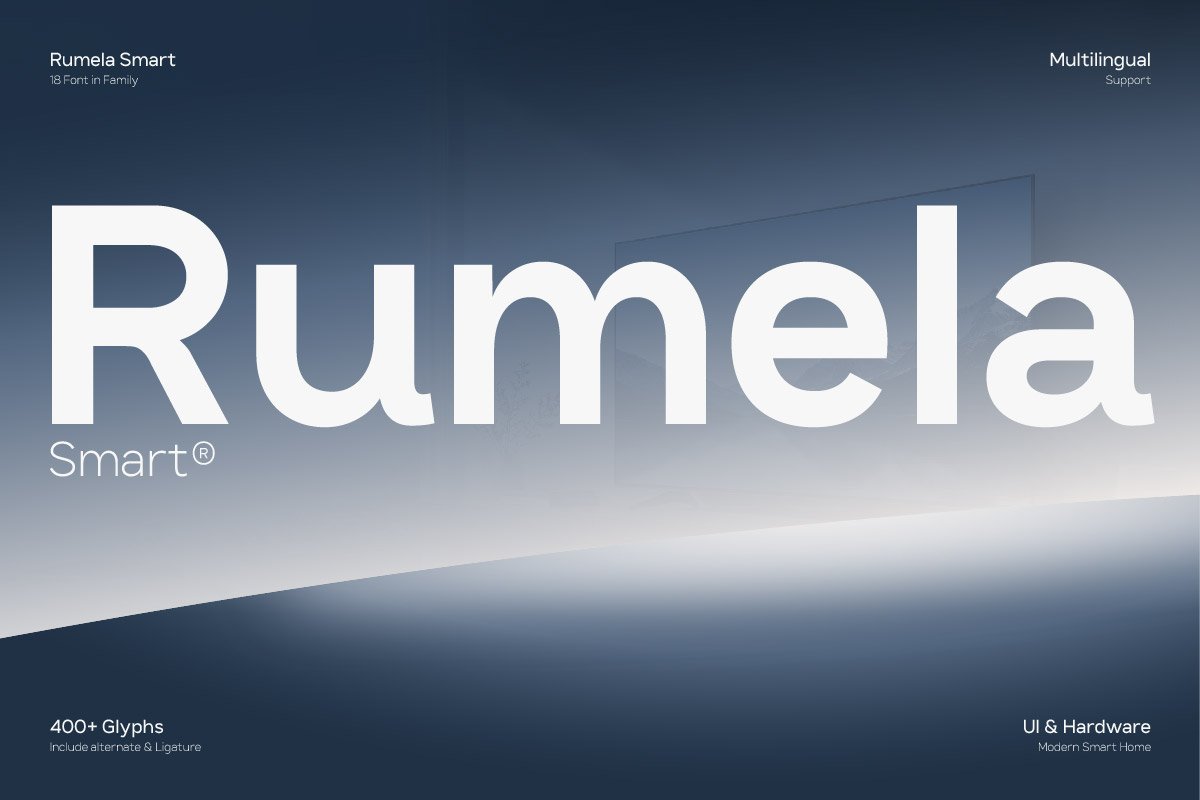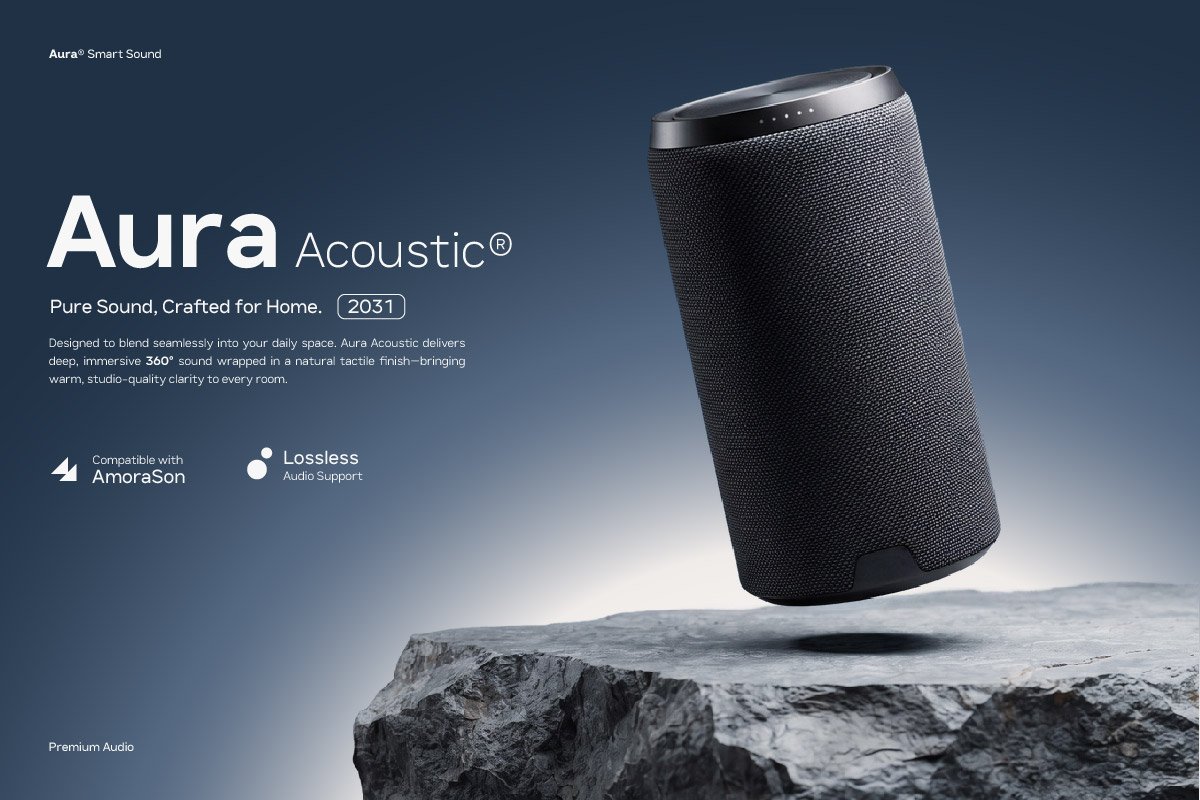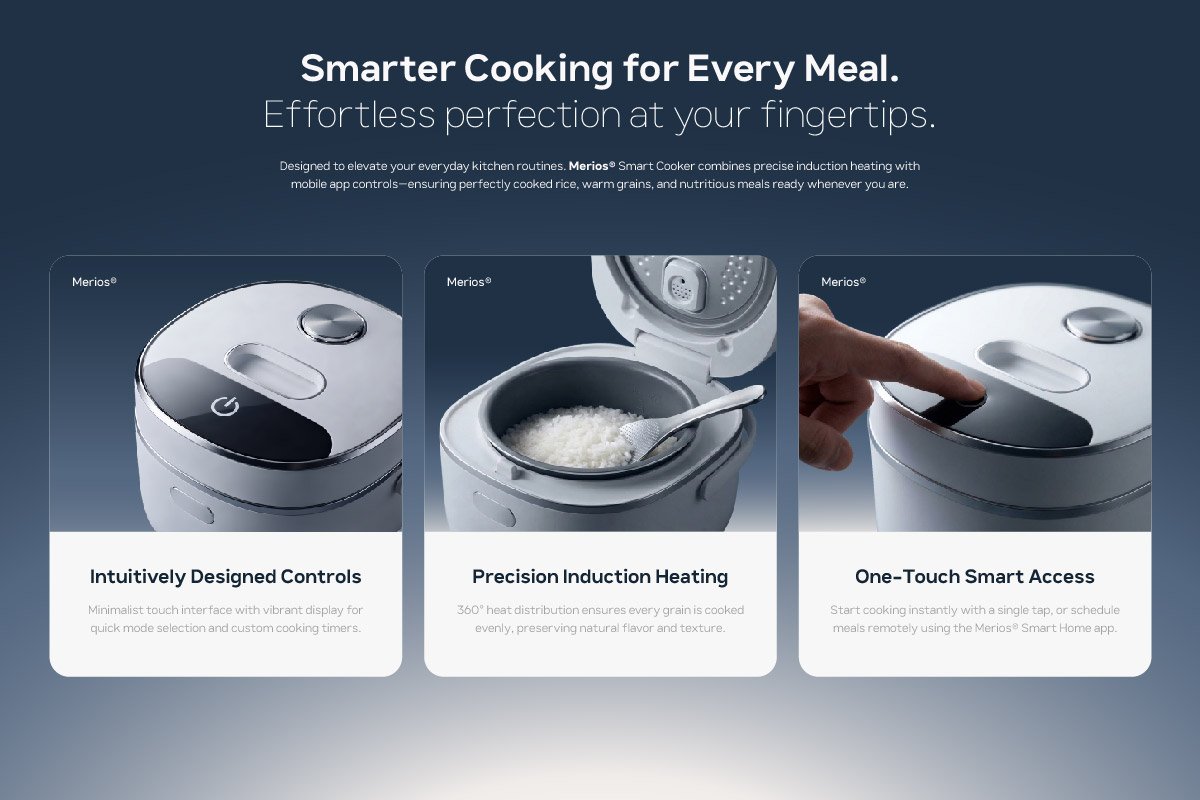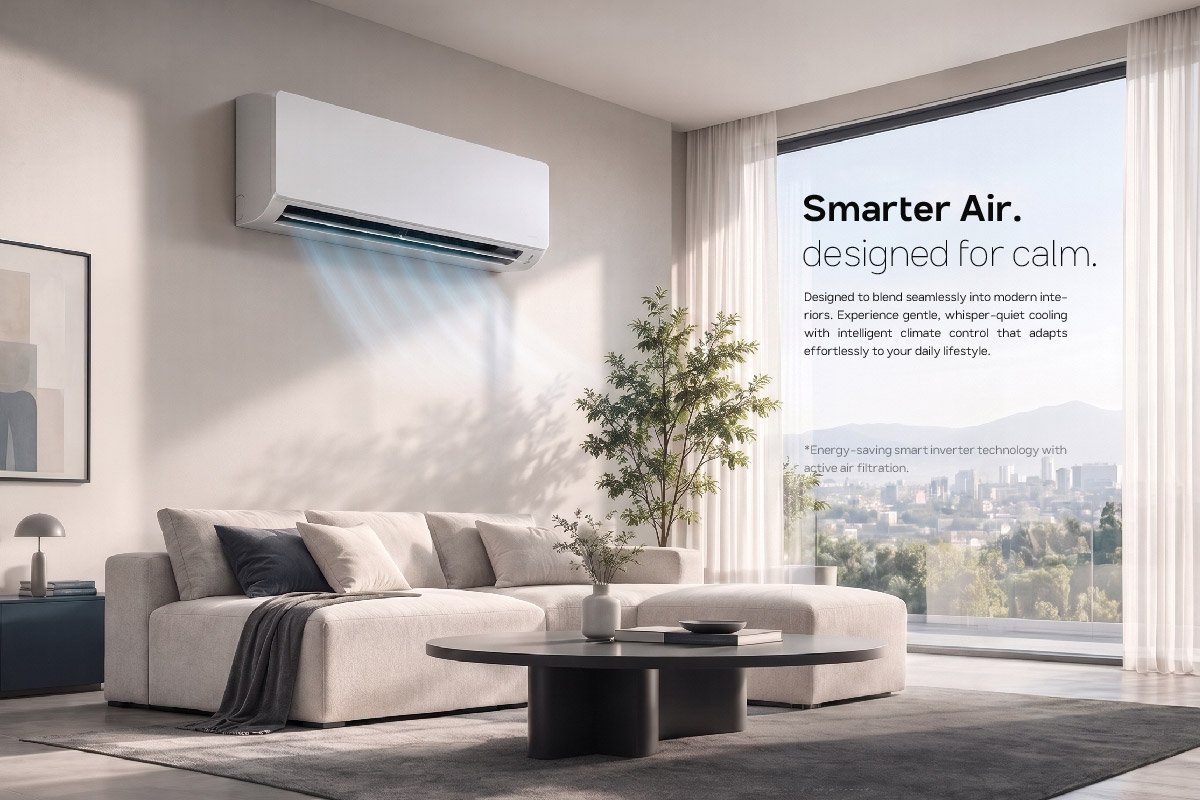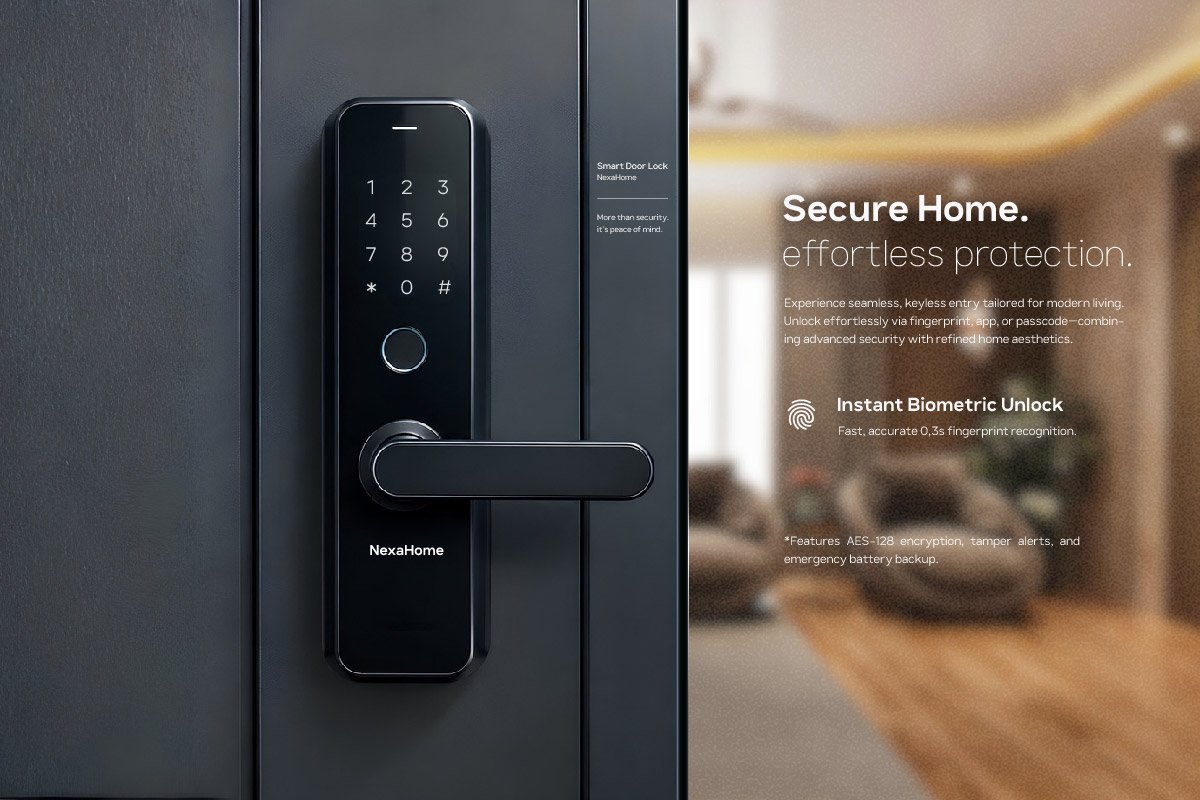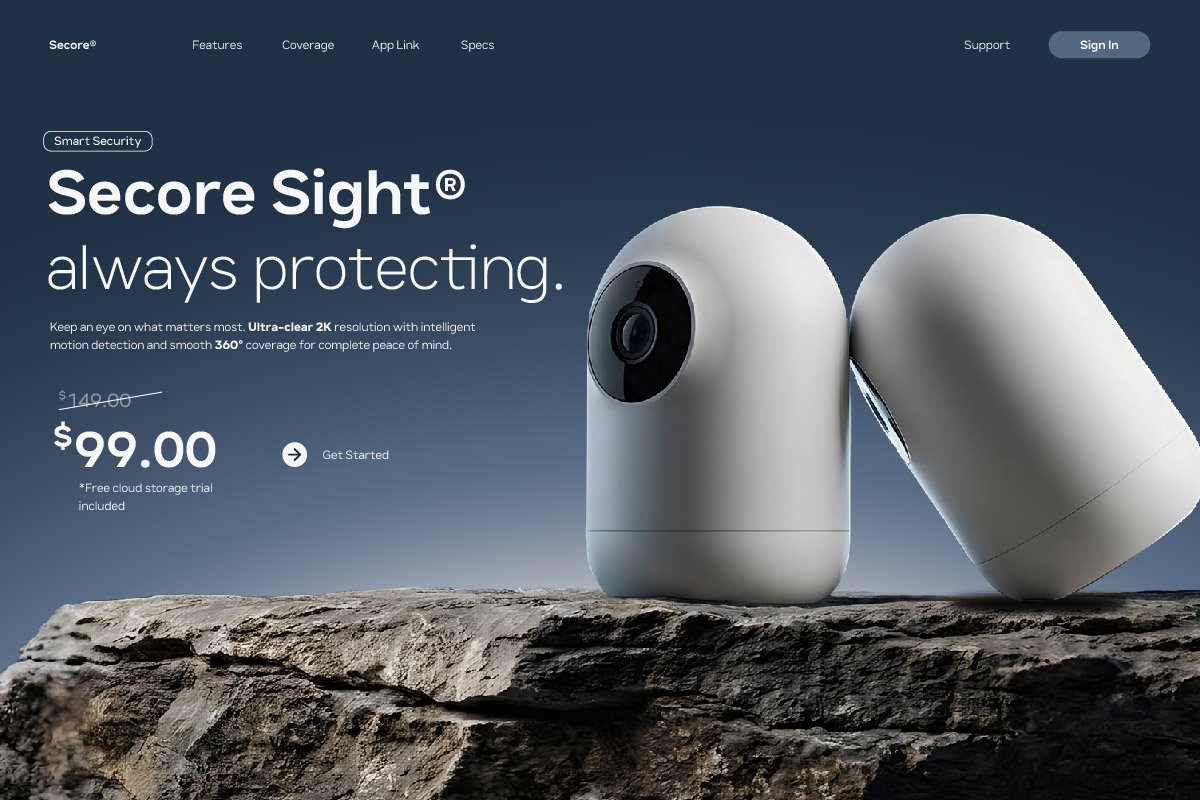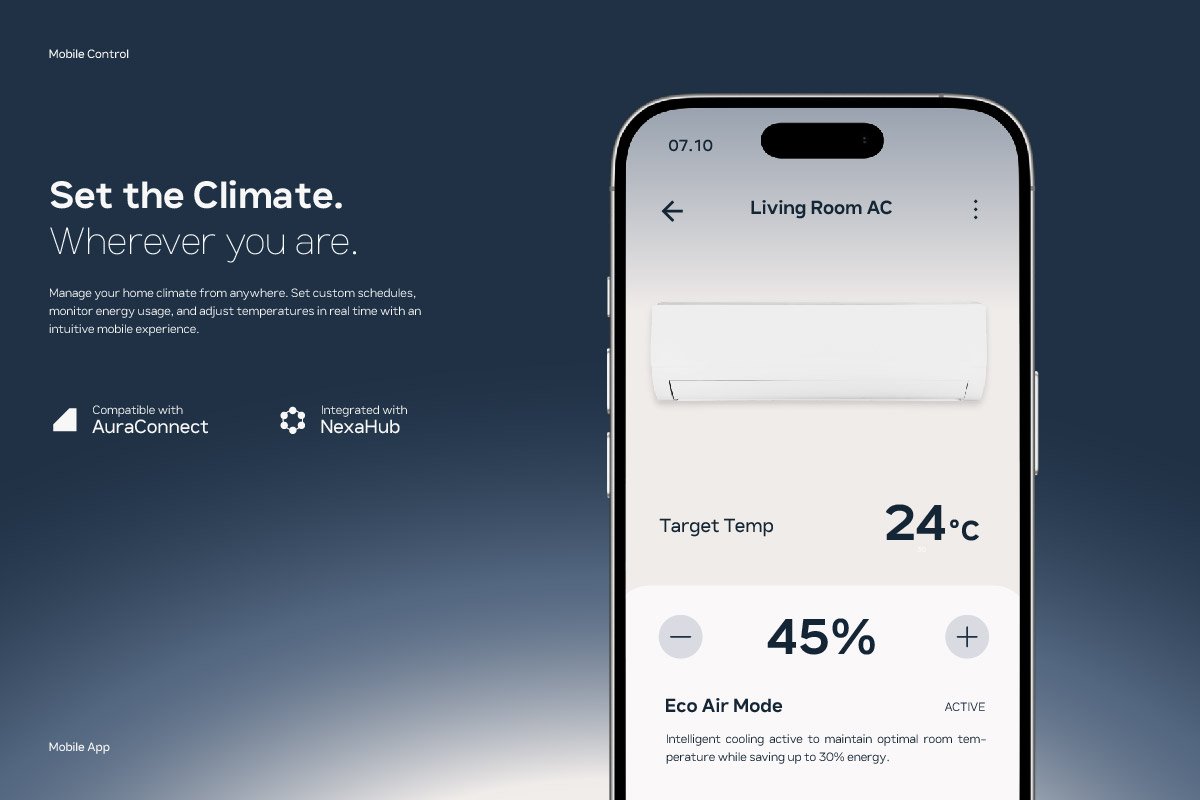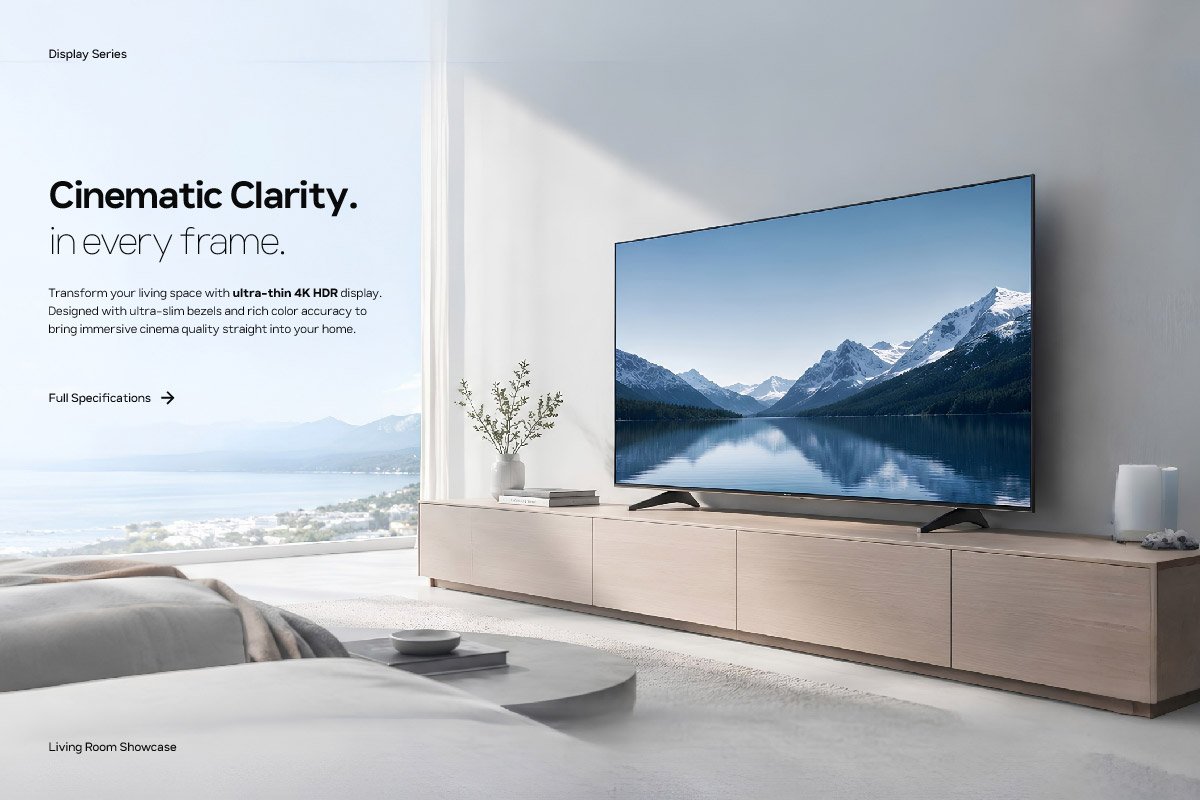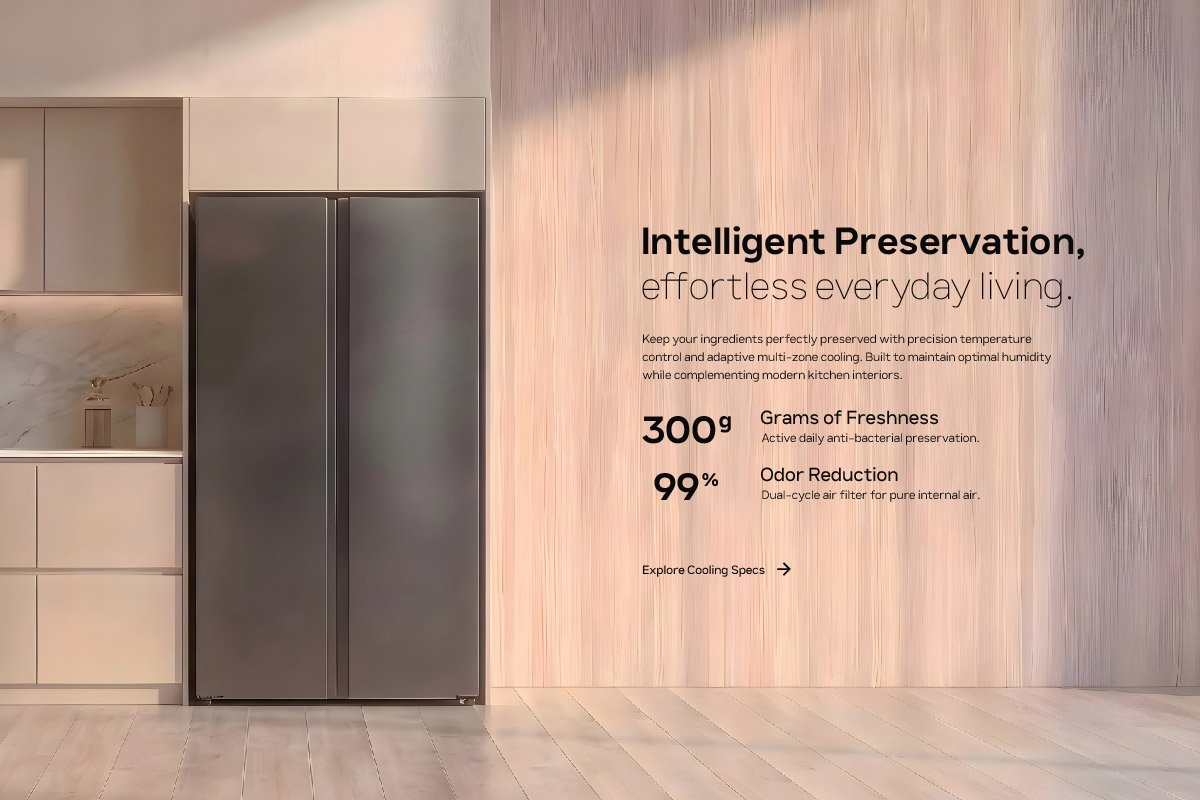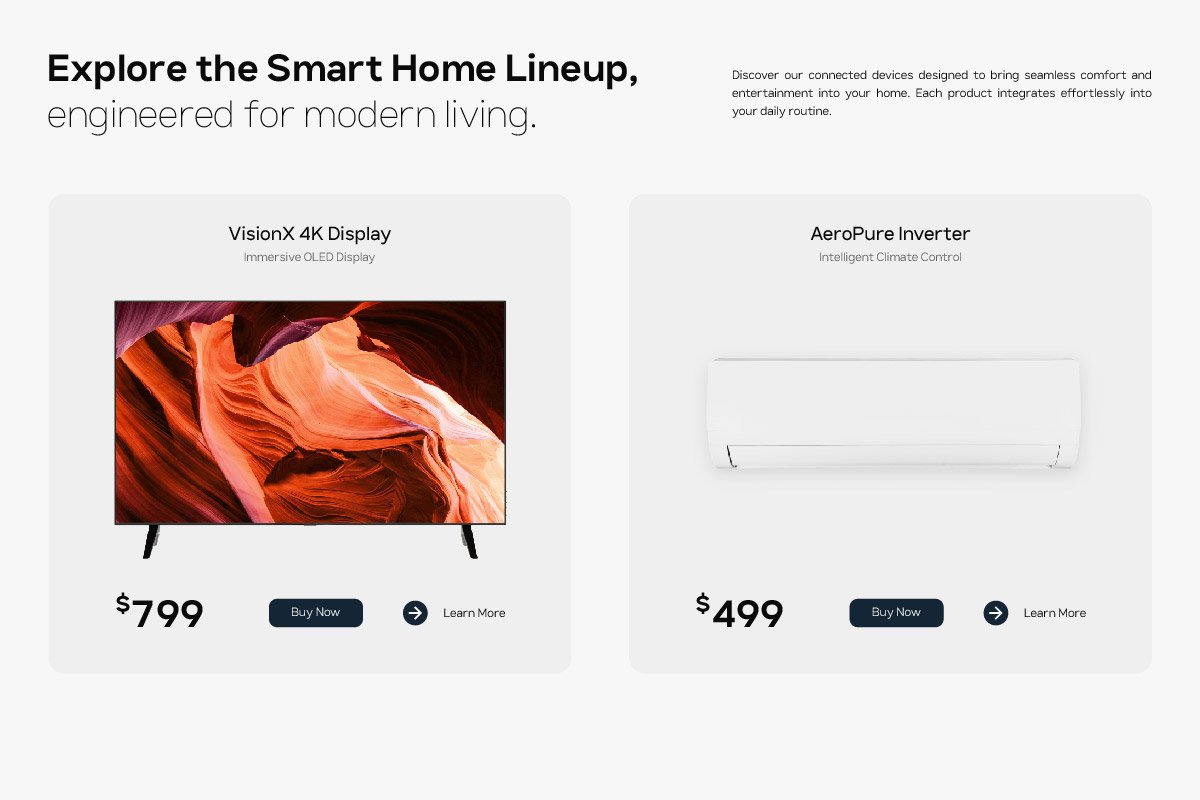
- Rumela Smart – Clean Modern Sans
Rumela Smart is a clean modern sans serif font family designed for contemporary branding, technology, smart living, and digital products. Its sleek and minimal character gives your designs a professional, intelligent, and approachable look, making it a great choice for modern brands and creative projects.
With 18 fonts in the family, 400+ glyphs, alternate characters, ligatures, and multilingual support, Rumela Smart gives you the flexibility to create consistent and polished typography across different design needs. Its balanced letterforms work beautifully for both display and everyday applications.
Perfect for smart home branding, IoT products, connected devices, technology startups, automation apps, security systems, smart appliances, UI/UX design, packaging, websites, and modern advertising. Rumela Smart brings a clean technological feel while remaining highly readable and versatile.